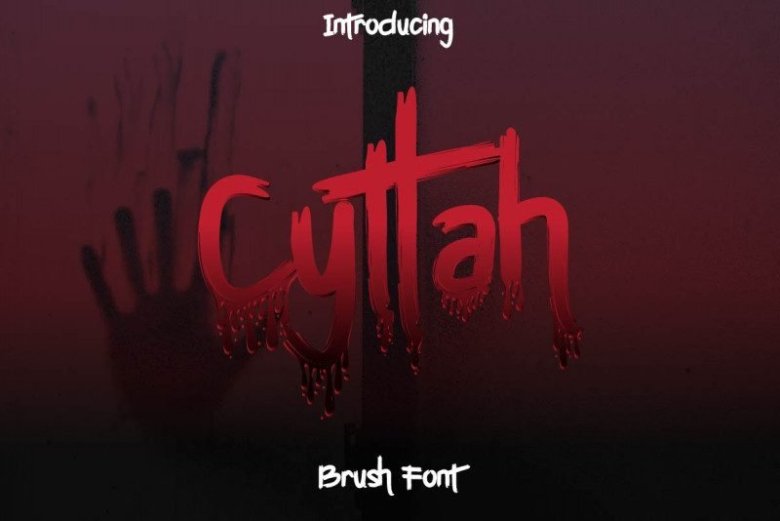
Cyttah Graffiti Font
This is a Graffiti brush font with a dark horror theme. This is a new rebel street yet rock pop culture modern display font, It unique and exclusive glyph.